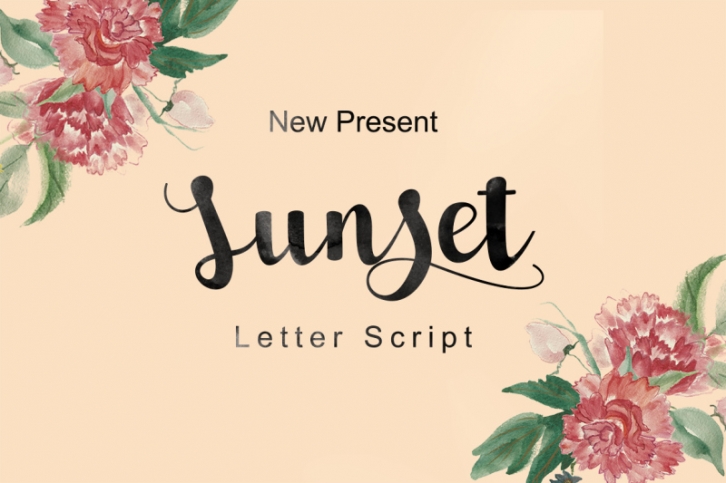
New Present Sunset Script
Sunset Script, Can used for various purposes. such as the title, logo, correspondence, wedding invitations, letterhead, signage, labels, newsletters, posters, badges, t-shirt, etc.
Comes with upper and lowercase characters, large set of punctuation glyphs, numerals, and supports international languages. Stylistic alternates for several key lower case characters are also available, accessible in the Adobe Illustrator Glyphs panel.
Standard Character. 397 Glyph, Swash + Ligature.